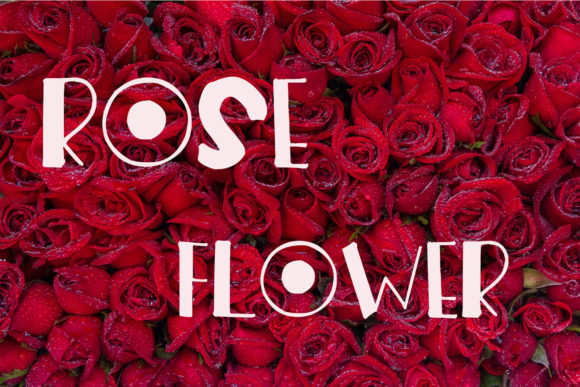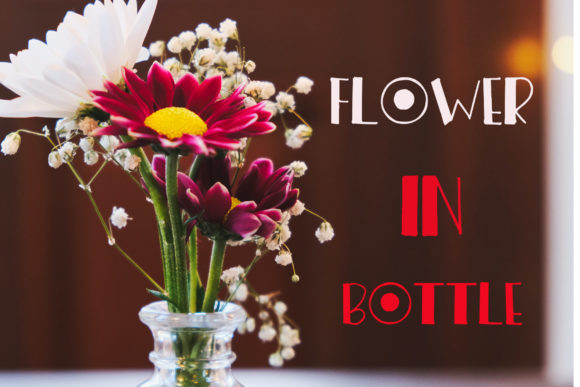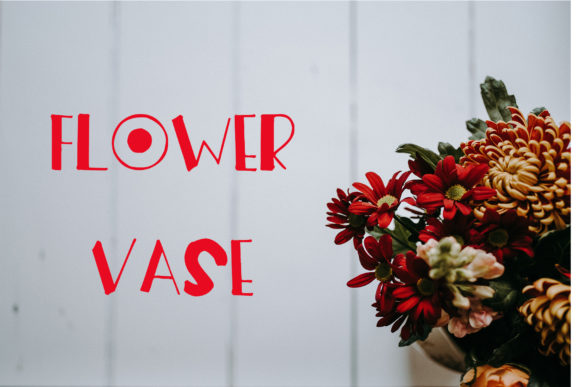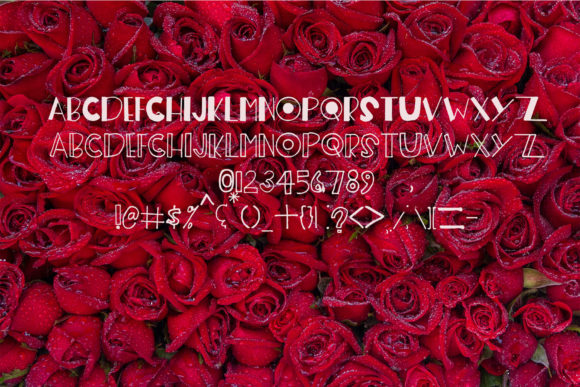
The Azallea Font: A Cute and Casual Handwritten Delight
I’ll never forget the moment I stumbled upon the Azallea font. I was working on a DIY project for a client’s baby shower invitation, and I was struggling to find the perfect font to match the playful and whimsical theme. That’s when I discovered Azallea, a cute and casual handwritten font that instantly won me over with its incredibly friendly feel.
Whether you’re a designer, crafter, or creative hobbyist, Azallea is a fantastic addition to your font library. In this article, we’ll dive into the world of Azallea, exploring its features, uses, and alternatives.
An Honest Review of Azallea Font
What I Love About Azallea ✨
- ✅ The friendly and approachable feel of Azallea makes it perfect for creative projects, from Instagram posts to DIY crafts.
- ✅ The font’s casual, handwritten style adds a touch of warmth and personality to any design.
- ✅ Azallea is incredibly versatile, suitable for a wide range of projects, from invitations and greeting cards to social media graphics and blog posts.
- ⚠️ Azallea may not be the best choice for formal or professional projects, as its casual style may not convey the right tone.
- ⚠️ Some users may find the font’s handwritten style a bit too playful or childish for certain projects.
- Take advantage of OpenType features, glyphs, and stylistic alternates to add more variety and interest to your design.
The Story Behind Azallea Font
Azallea was designed by a talented typographer who wanted to create a font that would bring a touch of warmth and personality to digital designs. Inspired by the beauty of handwritten scripts, Azallea was crafted to be a friendly and approachable font that would make any creative project shine.
| Author | alulazaheera05 |